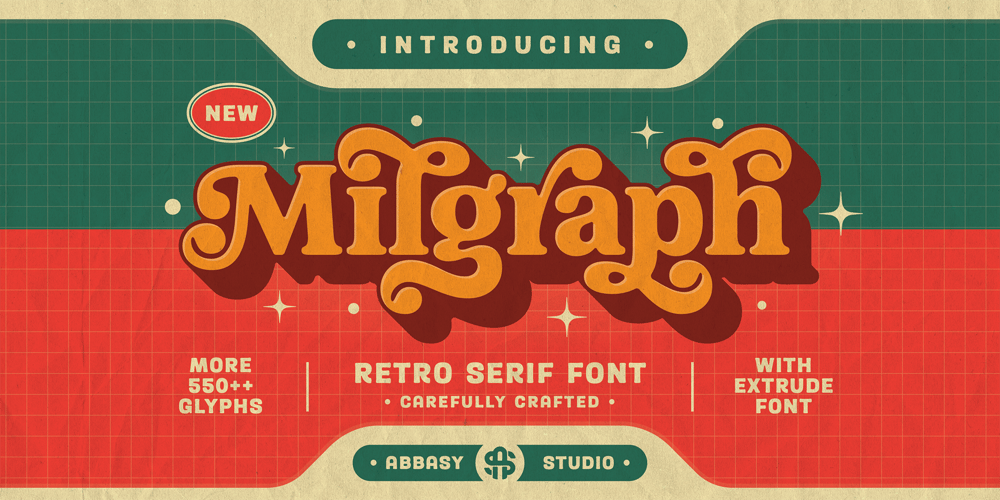
Milgraph Font Family was designed by Angga Kristiandri and published by Abbasy Studio. Milgraph contains 2 styles and family package options. Introducing Milgraph, A Retro Serif font. It was inspired by retro typography designs in 70’s. There are more than 550+ glyphs in this font including Multilanguage Support. OpenType features with Stylistic Alternates, Contextual Alternate, ligatures and terminal letter in some characters that allows you to mix and match pairs of letters to fit your design. Milgraph also comes with Extrude Font version, so you can giving a unique retro touch to your digital projects in ease.Milgraph is perfectly suitable for made to be applied especially in logo, and the other various formal forms such as invitations, labels, logos, magazines, books, greeting / wedding cards, packaging, fashion, make up, stationery, novels, labels or any type of advertising purpose.